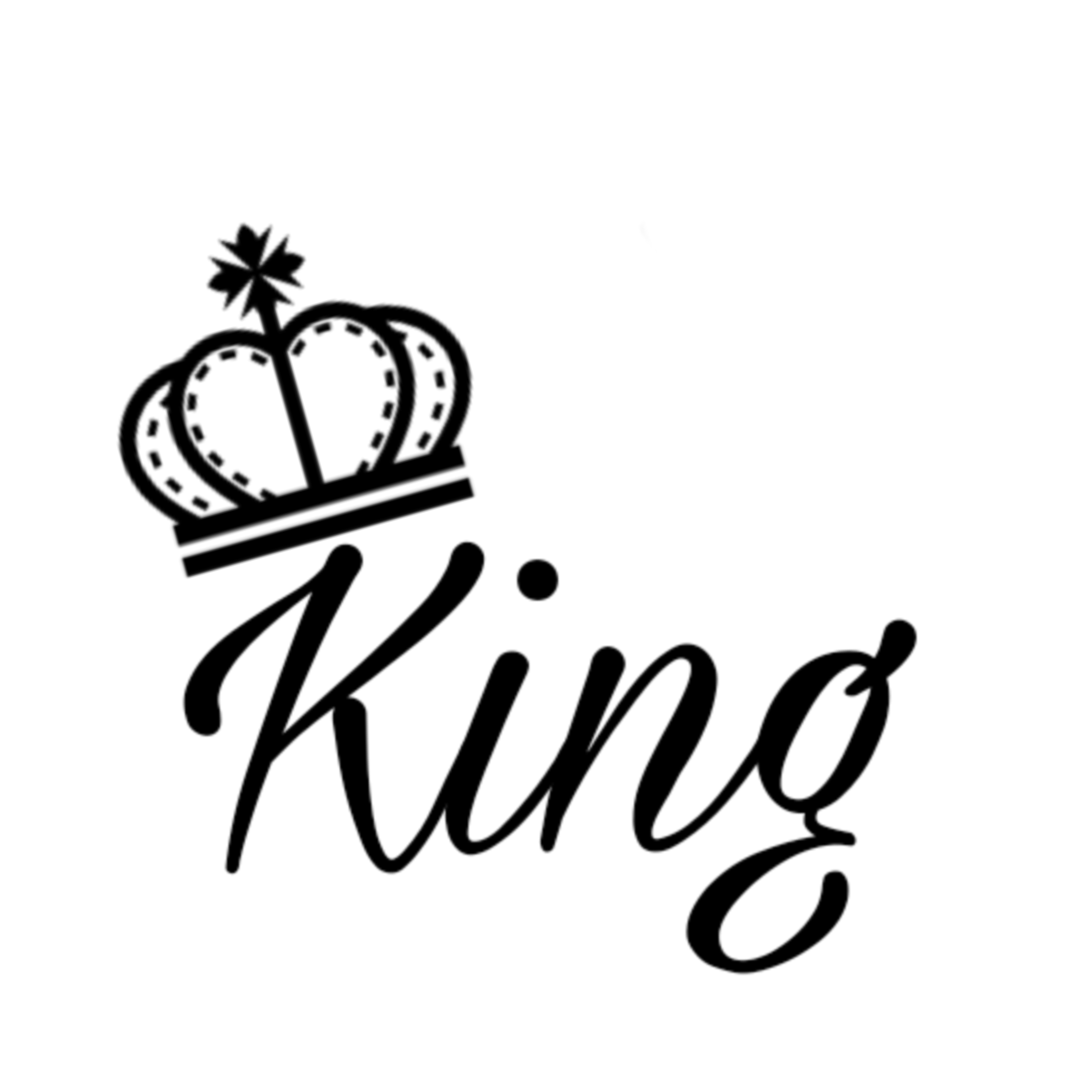
Crown Royal Font Generator. Click to find the best 28 free fonts in the royal style. It has a bold and elegant look which can be used for various designs.
Click to find the best 2 free fonts in the royal crown style. Every font is free to download! The royal crown is an amazing serif font.
Rothenburg Decorative Is A Creative And Calligraphic Font Published By Typographer Mediengestaltung.